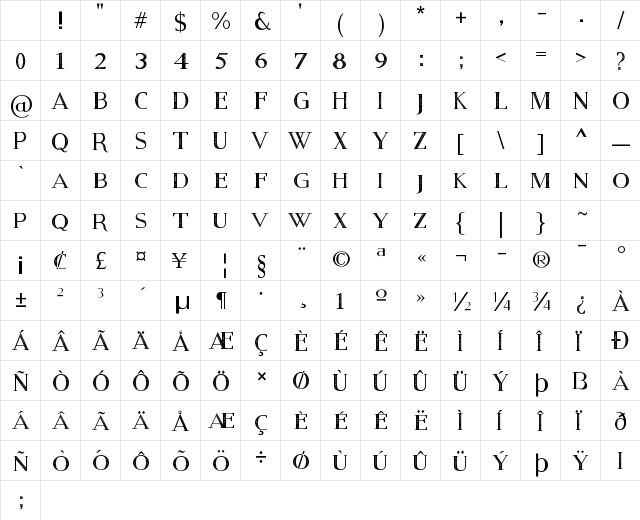
Complete Modern Serif Eroded Regular glyph index. Displaying only characters natively supported by Modern Serif Eroded Regular font.
Modern Serif Eroded embraces imperfection - its rough, textured character adds raw authenticity to designs that want to feel lived-in and unconventional.
Pro Tip: Use Modern Serif Eroded at larger sizes where the texture and irregularity of each letterform can be clearly seen - it loses its character at small sizes.